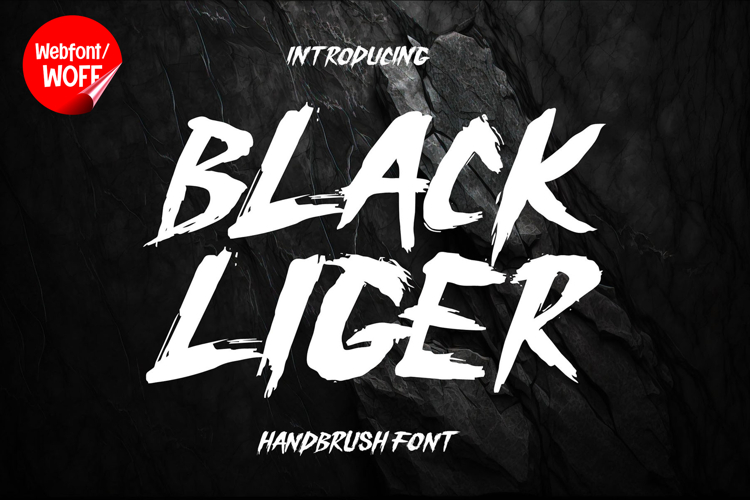
Black Liger | Bold Hand Brush Webfont for Strong Websites
Black Liger is a bold hand brush webfont designed to bring powerful strokes and expressive character into modern website design. Inspired by hand-painted lettering, this font features thick brush lines with natural variation, creating a strong and dynamic visual impact. It is an ideal choice for projects that require a bold, artistic, and confident typographic style.
Black Liger includes a complete set of uppercase characters designed with bold brush strokes. Each letter reflects the movement of a brush, giving the text a natural and energetic flow. These expressive forms are perfect for headlines, banners, hero sections, and featured content where strong visual presence is essential. The thick strokes help create a clear hierarchy, making important elements stand out.
In addition to letters, the font includes numbers and punctuation, allowing flexible usage across various website elements. It works well for promotional text, event information, pricing displays, and navigation highlights. Each character maintains a consistent brush style, ensuring a cohesive and unified visual identity throughout the design.
With multilingual support, Black Liger includes a wide range of accented characters, making it suitable for international websites and global audiences. This allows content to be displayed clearly across different languages while preserving the bold brush aesthetic.
The bold hand brush style of Black Liger makes it especially suitable for creative websites, branding projects, music platforms, sports designs, lifestyle content, and promotional pages. Its strong and expressive strokes add energy and personality, helping websites stand out in competitive digital environments. The handcrafted feel also brings authenticity and artistic depth to the overall design.
Despite its bold and textured appearance, Black Liger is designed with readability in mind. The spacing and structure of each character are carefully balanced to ensure clarity, particularly in display sizes. This makes it effective for impactful headings and short text elements where both style and usability are important.
Black Liger is a webfont that combines bold brush aesthetics with modern digital functionality. Its strong strokes, natural flow, and expressive character create a distinctive typographic presence that enhances website design. For projects that require a powerful, artistic, and visually engaging font, Black Liger offers a reliable and impactful solution.